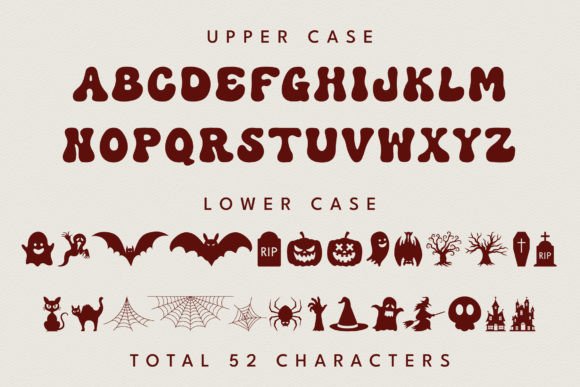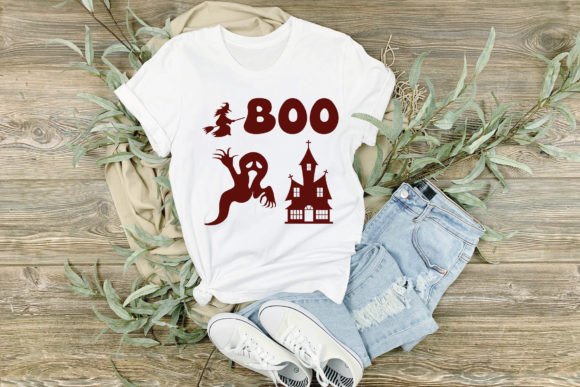
Get Ready to Cast a Spell with Boo Spooky Font
As the spooky season approaches, designers everywhere are on the lookout for the perfect font to add a touch of terror to their projects. Do you remember the excitement of rummaging through your grandfather’s old trunk, filled with dusty Halloween decorations and mysterious trinkets? That’s the kind of feeling you’ll get when you unleash the Boo Spooky Font on your designs.
Boo Spooky Font is the perfect choice for designers who want to add a dash of horror to their projects. With its eerie, creepy, and scary vibe, this font is sure to send chills down the spines of your audience. Whether you’re creating spooky signage, bewitching crafts, or party invitations, the Boo Spooky Font will add a touch of magic to your designs.
Key Features of Boo Spooky Font
- Unique Characteristics: The font features a unique, hand-drawn design with a spooky and eerie feel, making it perfect for Halloween-themed designs, horror movies, and other dark-themed projects.
- Style Options: Boo Spooky Font includes multiple style options, including regular, bold, italic, and bold italic, allowing designers to add variety and emphasis to their designs.
Boo Spooky Font Review
As a designer, I was initially drawn to the Boo Spooky Font due to its eerie and playful vibe. ✨ The font’s unique blend of bold lines and rounded edges creates a sense of unease that’s perfect for Halloween-themed designs.
- ✨ Unique and playful design aesthetic
- ✨ Suitable for Halloween-themed designs and other spooky occasions
- ✨ Easy to read, even in bold and larger font sizes
However, I did encounter some limitations when working with the Boo Spooky Font. ⚠️ The font’s design can come across as a bit too childish for some audiences, which may detract from its overall impact.
- ⚠️ May not be suitable for all audiences due to its playful design aesthetic
- ⚠️ Limited use cases outside of Halloween-themed designs
Overall, I would give the Boo Spooky Font 4 out of 5 stars. While it excels in its unique design and playful vibe, its limitations may prevent it from being a go-to font for all designers.
The Boo Spooky Font is perfect for creating spooky and Halloween-themed designs, such as invitations, posters, and social media graphics.
Use the font to add a touch of eeriness to your designs and make them stand out from the crowd.